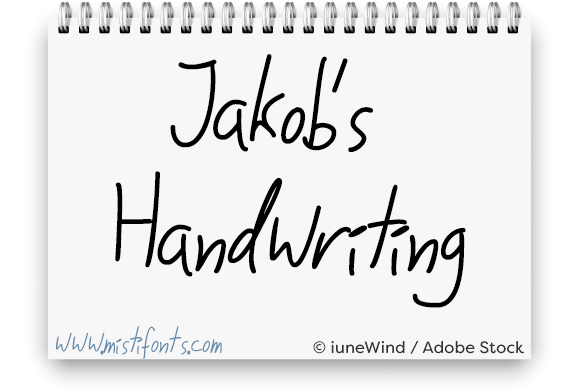
HomeScript FontsJakob''s Handwriting Script Fonts Jakob”s Handwriting FacebookXPinterestWhatsApp 1 of 1 About Jakob”s Handwriting Font Jakob’s Handwriting is a messy, natural handwritten typeface that is great for a variety of projects! DOWNLOAD NOW People also explored Farmahouse Homework Font Typnic Headline Slab Font Rumble Tattoos Font Rietha Font Xagomax Font Montra Font Leaf Font Kitties Unicorn Font Bellonitta Signature Font 238 0 TagsJakob''s Handwriting Font Previous articleSamantha ”s ScriptNext articleMother”s Touches LEAVE A REPLY Cancel reply Comment: Please enter your comment! Name:* Please enter your name here Email:* You have entered an incorrect email address! Please enter your email address here Website: Save my name, email, and website in this browser for the next time I comment. Personal Use Free Rookie Mastering Personal Use Free Read more about this font Nulshock Bold Personal Use Free Read more about this font Goodline Font Personal Use Free Read more about this font Tomatoes Personal Use Free Read more about this font BLOG Best Fonts for YouTube Videos: Make Your Thumbnails Stand Out Best Fonts for YouTube Videos: Make Your Thumbnails Stand Out Choosing the right font can make a massive difference in how your YouTube videos perform.... How to Install and Use Fonts on Windows, macOS, and Web Projects Free Fonts Risk: Why Free Fonts Can Be Dangerous for Designers Top 10 Handwritten Fonts That Elevate Your Designs